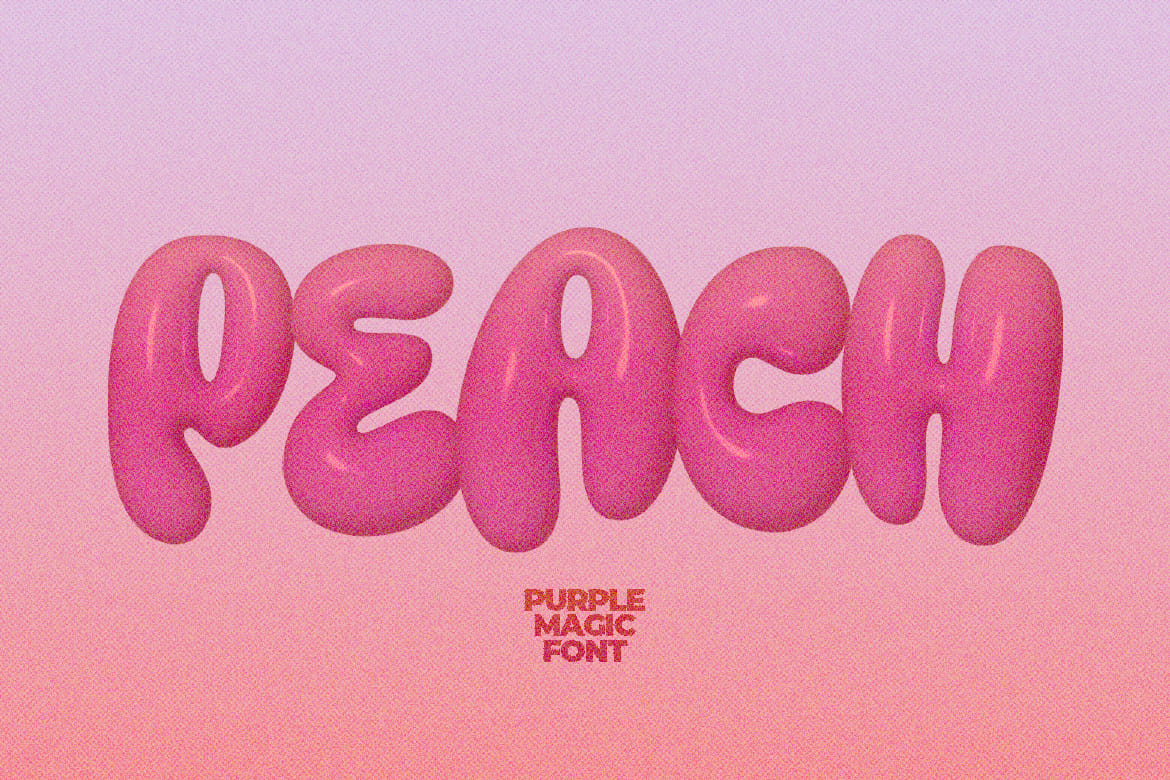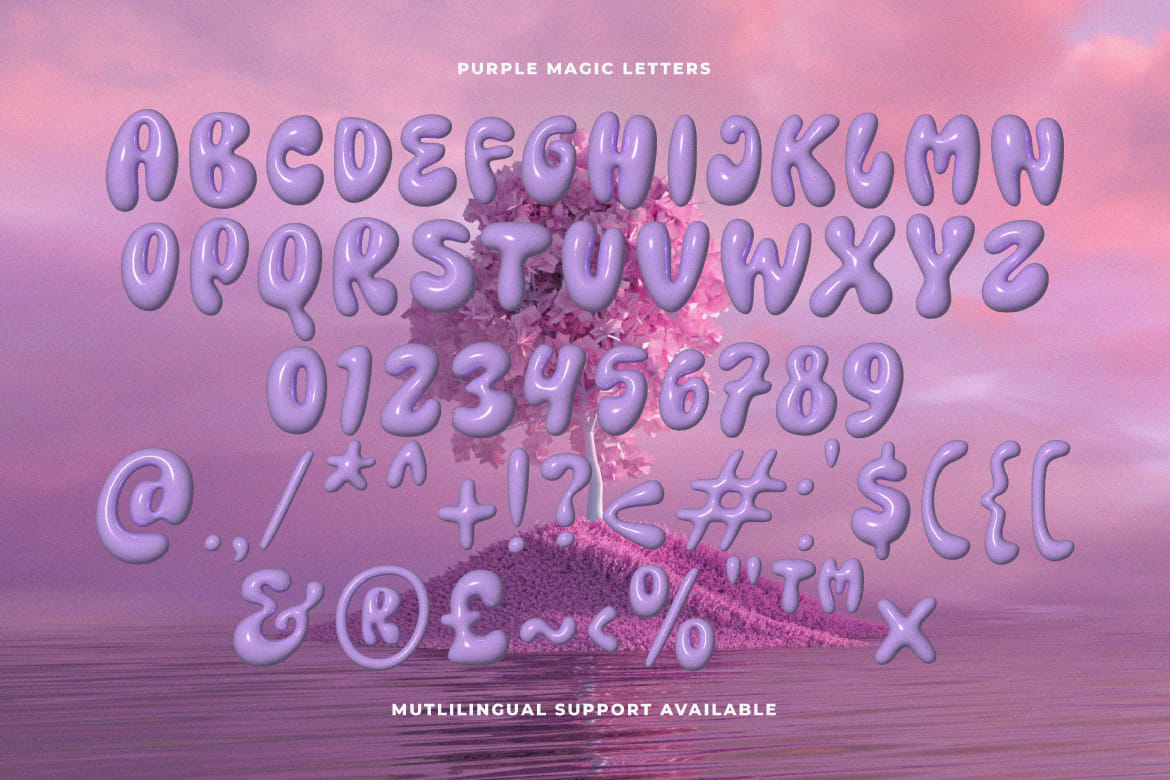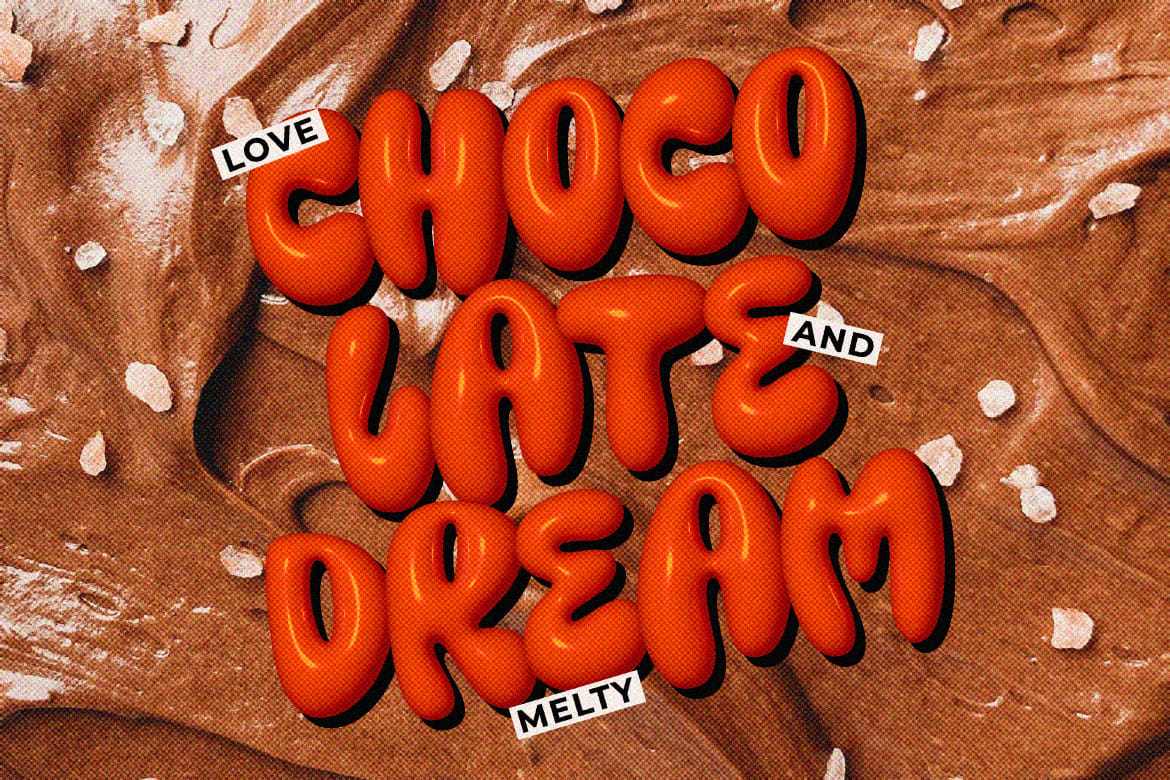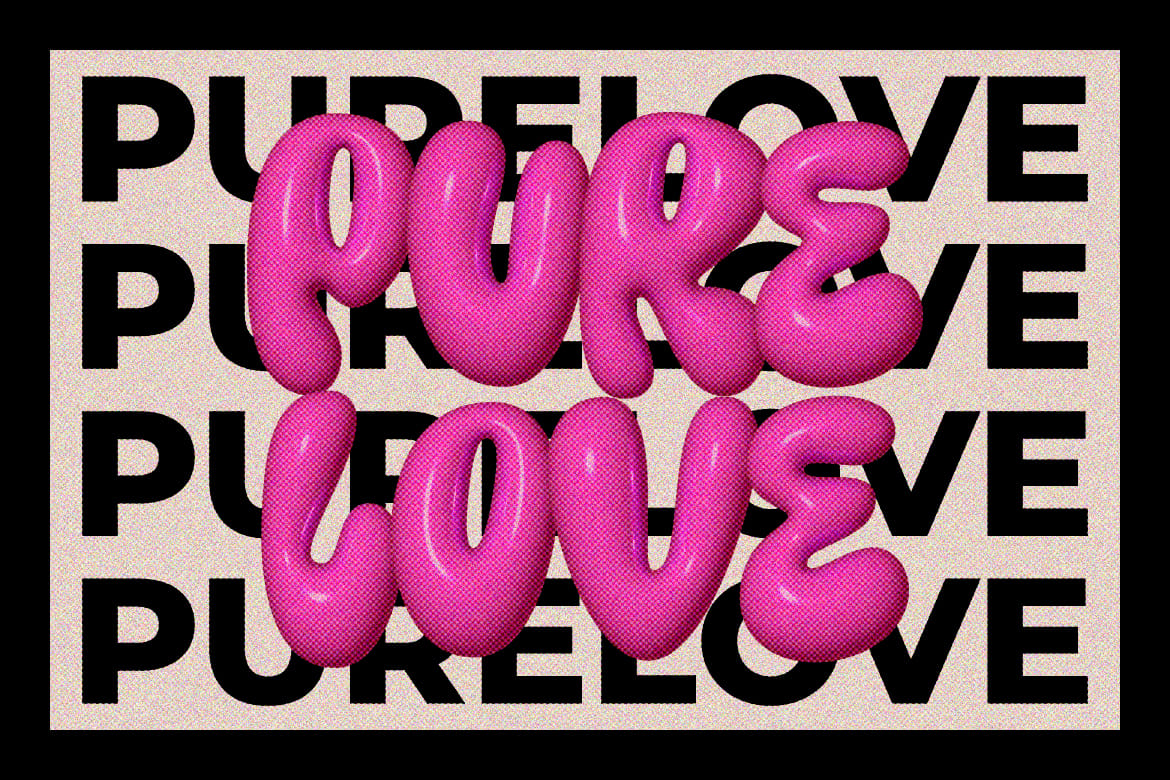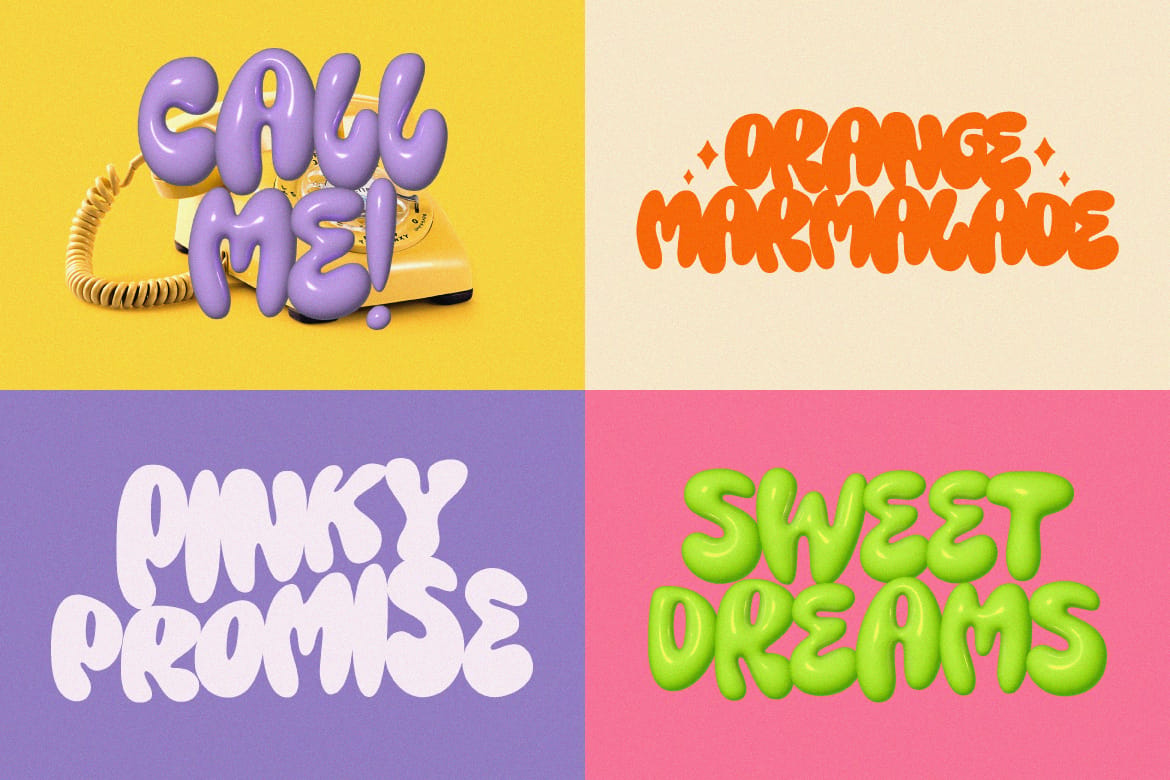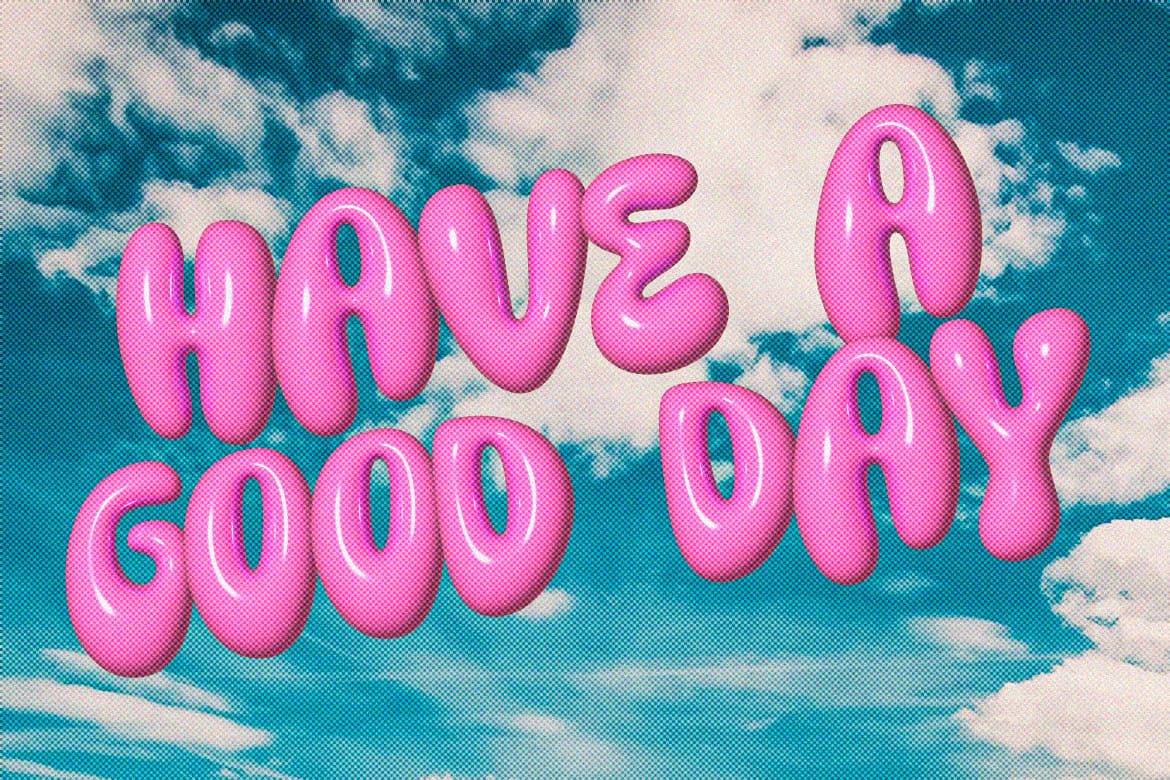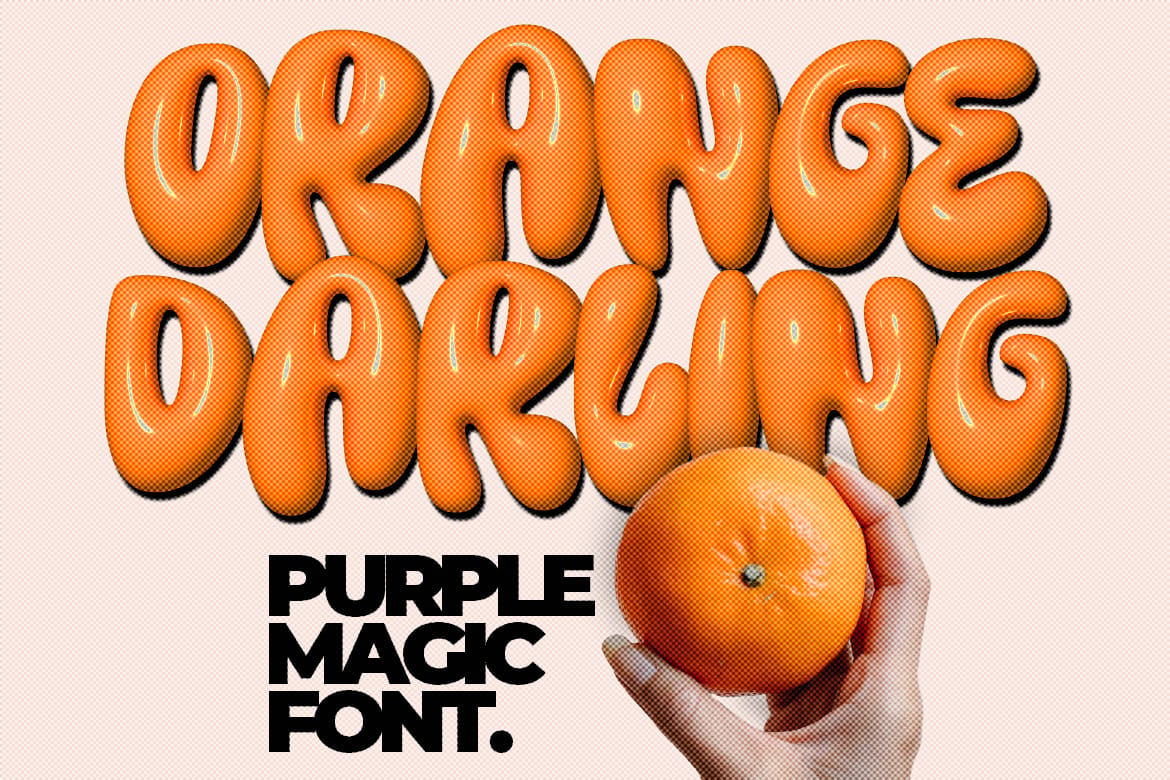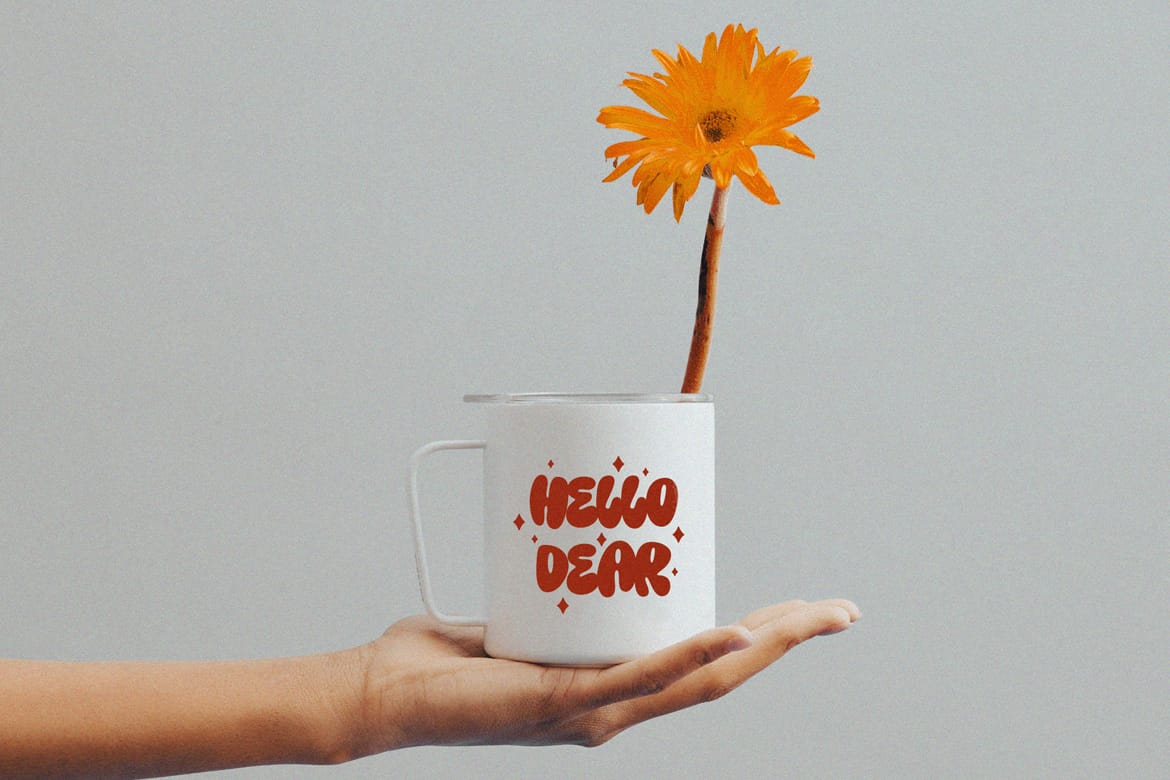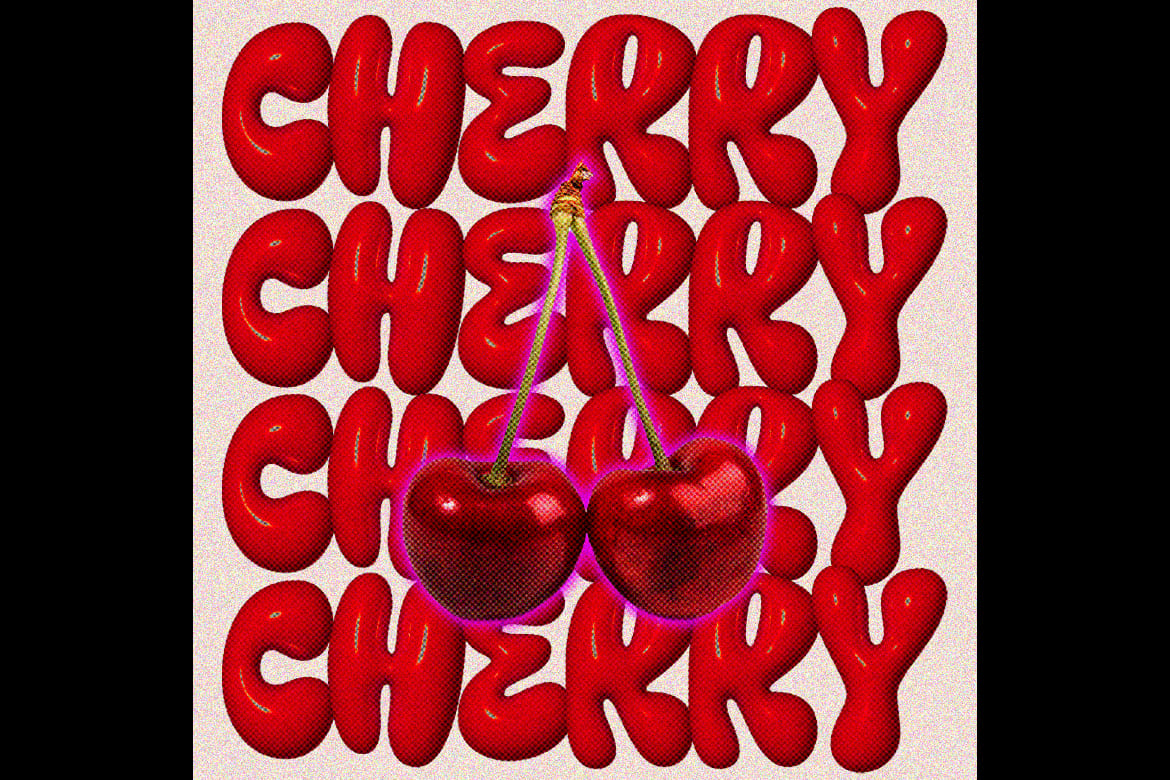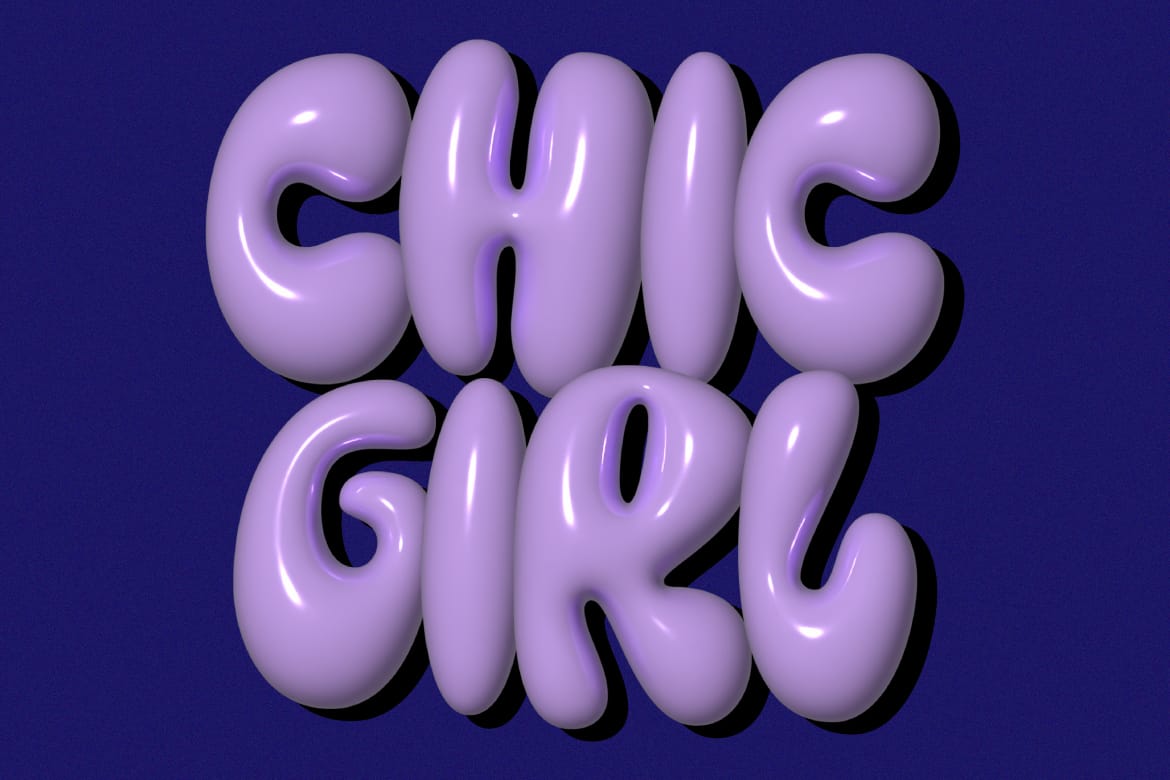
Purple Magic - 3D SVG Font
Hand drawn chubby font with 2 styles: 3D SVG and regular. It is perfect for contemporary designs. Great for poster designs, social media posts, logos etc. Note: You can change the color using Hue/Saturation color (Adobe Photoshop) or adjust the color balance (Adobe Illustrator). Features: Uppercase, Lowercase, Numeral, Punctuation & Multilingual. Obtained file format: Otf, Ttf & Woff.
• 3D SVG and regular styles
• Customizable colors in Photoshop/Illustrator